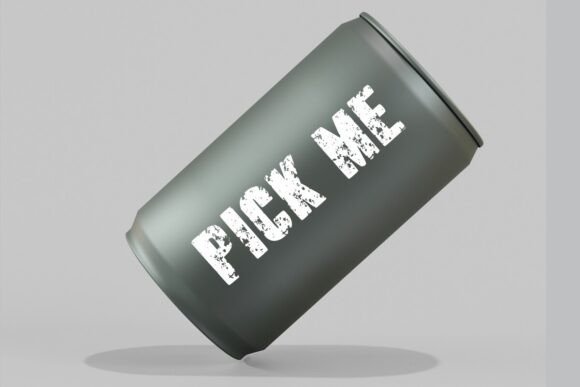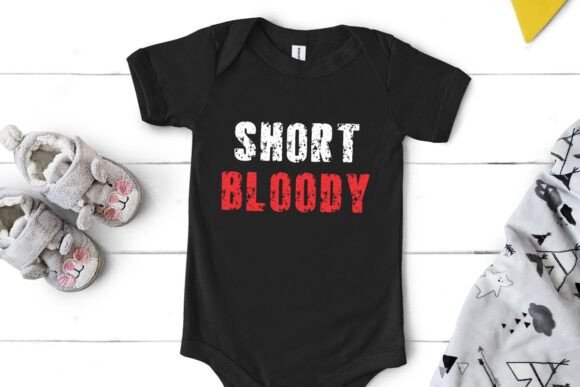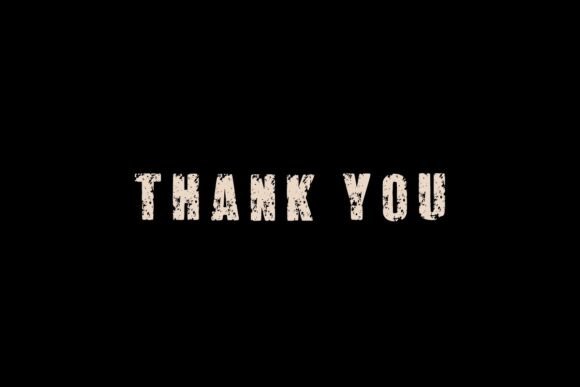
Introduction to Grinz Grunge Font
Remember that moment when you’re brainstorming ideas for your next creative project, and you stumble upon the perfect font to bring your vision to life? For designers, finding the right font can be a game-changer. It’s the difference between a project that’s just okay and one that truly stands out.
That’s where the Grinz Grunge Font comes in – a high-quality, bold display font that’s perfect for making a statement. Whether you’re working on a blog post, a logo, or even a wedding invitation, this font is sure to add a touch of rugged elegance to your design. With its transparent background and rough texture, it’s a design resource that’s both versatile and visually appealing.
Key Features of Grinz Grunge Font
- Unique Grunge Texture: The Grinz Grunge Font features a distressed, worn-out texture that adds a touch of ruggedness to any design project.
- High-Quality Design Resource: This font is a high-quality design resource, perfect for creative projects that require a unique and eye-catching look.
- Transparent Background: The font has a transparent background, making it easy to use with any background image or color.
- Perfect for Creative Projects: The Grinz Grunge Font is ideal for creative projects such as album covers, posters, and flyers that require a unique and edgy look.
Honest Review: Grinz Grunge Font
As a designer, I’m always on the lookout for high-quality design resources that can elevate my creative projects. The Grinz Grunge Font is one such resource that caught my attention.
- ✨ Unique texture and style that adds a touch of grunge to any design
- ✨ High-quality font files that are perfect for print and digital use
- ✨ Transparent background, making it easy to customize and layer with other design elements
- ⚠️ Limited character set, making it less suitable for long-form text or complex typography
- ⚠️ Some users may find the font’s grunge aesthetic too aggressive or overpowering
Overall, the Grinz Grunge Font is a solid addition to any designer’s toolkit. While it has its limitations, its unique style and high-quality files make it an excellent choice for creative projects that require a touch of grunge or edginess. Whether you’re looking for a design resource to spice up your social media graphics or a font to add some texture to your print materials, the Grinz Grunge Font is definitely worth checking out.
Tips for Getting the Most Out of Grinz Grunge Font
To get the most out of the Grinz Grunge Font, experiment with different font sizes, colors, and styles to achieve a unique visual effect. You can also use the font in combination with other design elements, such as images and graphics, to create a cohesive and engaging design.
The Grinz Grunge Font is ideal for use in creative projects that require a distressed or vintage look, such as:
– Music festival or concert promotional materials
– Retro-themed advertising campaigns
– DIY or handmade product branding